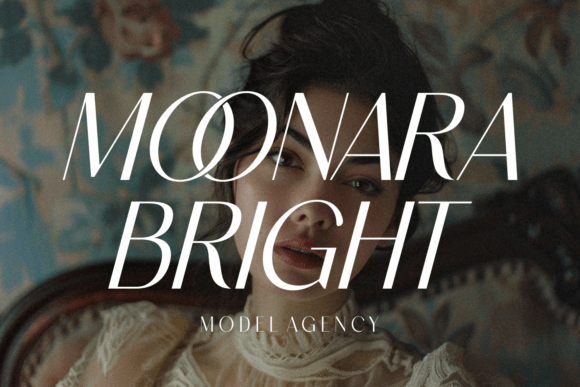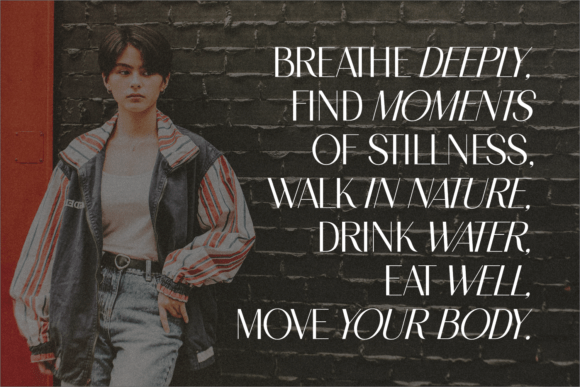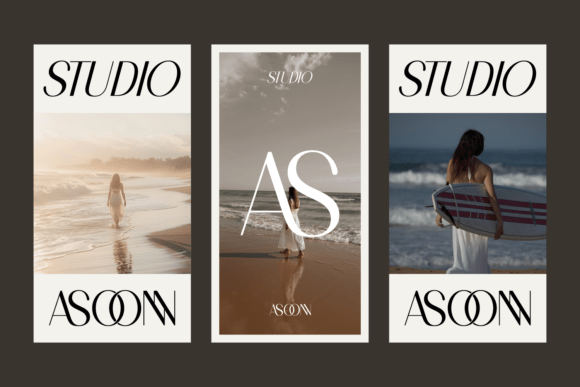
Introducing Good Flash: The Epitome of Luxury Sans Serif Fonts
In the realm of typography, a font can make or break the visual identity of a brand, product, or creative project. For those seeking to infuse their designs with a sense of timeless beauty and refined sophistication, Good Flash emerges as a beacon of excellence. This modern, elegant luxury sans serif font is meticulously crafted to cater to the needs of designers and crafters aiming to elevate their work to the pinnacle of luxury and exclusivity.
The Essence of Good Flash
Good Flash is not just a font; it’s an experience. Designed with an acute attention to detail, each character in this typeface embodies a refined aesthetic that speaks of luxury and sophistication. The clean lines, the balanced proportions, and the subtle nuances in its design make Good Flash versatile and highly adaptable. Whether it’s for logo design, wedding invitations, fashion editorials, skincare packaging, cosmetic branding, luxury posters, premium product packaging, or any project that demands a high-end feel, Good Flash proves to be an impeccable choice.
Crafting Timeless Beauty
The hallmark of Good Flash lies in its ability to convey elegance and refinement without succumbing to trends. In an era where design trends are fleeting, Good Flash stands out by offering a timeless appeal that transcends the ephemeral nature of contemporary design. Its luxury sans serif design ensures that it remains legible and aesthetically pleasing across various mediums and applications, making it a valuable asset for any designer or brand looking to establish a lasting visual identity.
One of the defining features of Good Flash is its versatility. This font can seamlessly integrate into a wide array of design projects, including but not limited to:
- Logo Design: Imprint your brand with a logo that exudes luxury and sophistication.
- Wedding Invitations: Add an air of elegance and exclusivity to your wedding invites.
- Fashion Editorials: Elevate your fashion content with a font that speaks of style and luxury.
- Skincare Packaging: Stand out in the beauty industry with packaging that radiates premium quality.
- Cosmetic Branding: Create a brand identity that is synonymous with luxury and high-end quality.
- Luxury Posters: Convey your message with posters that are as visually stunning as they are effective.
- Premium Product Packaging: Ensure your product packaging communicates the luxury and value of your offering.
Why Choose Good Flash?
Choosing Good Flash for your design project comes with numerous benefits:
- Unique Aesthetic: Stand out with a font that is both modern and timeless.
- High Versatility: Suitable for a wide range of applications and mediums.
- Attention to Detail: Each character is designed to contribute to a cohesive and luxurious visual identity.
- Elegance and Sophistication: Infuse your designs with a sense of luxury and refined taste.
Good Flash is more than just a font; it’s a design statement. For those who are passionate about creating work that embodies luxury, sophistication, and timeless beauty, Good Flash is the ultimate tool. Its elegant design, versatility, and the refined aesthetic it brings to any project make it an indispensable resource for designers and crafters worldwide. Whether you’re looking to create a brand identity that exudes luxury, design wedding invitations that are as elegant as they are unique, or package products that speak of premium quality, Good Flash is your gateway to achieving design excellence.